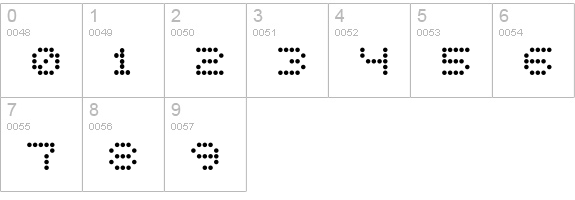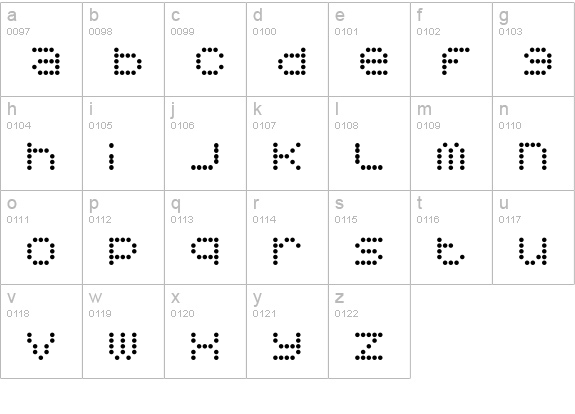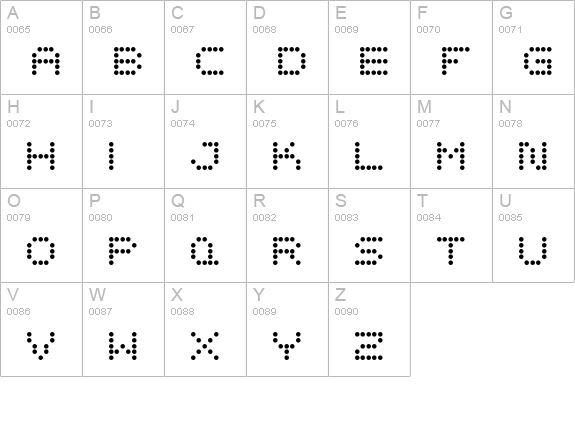
5x5 Dots Font Details
Introducing the captivating 5x5 Dots font, a modern and stylish typeface that is perfect for adding a touch of creativity to your designs. This unique font features a grid of evenly spaced dots arranged in a 5x5 pattern, creating a visually striking and eye-catching appearance. The 5x5 Dots font is versatile and can be used for a wide range of design projects, from posters and flyers to social media graphics and branding materials. Its clean and minimalist design makes it suitable for both digital and print applications, ensuring that your message stands out in a bold and contemporary way. Best of all, the 5x5 Dots font is available for free download at FontsMarket.com, making it accessible to designers and creatives looking to elevate their projects without breaking the bank. Don't miss out on this fantastic opportunity to enhance your designs with the sleek and modern 5x5 Dots font today!